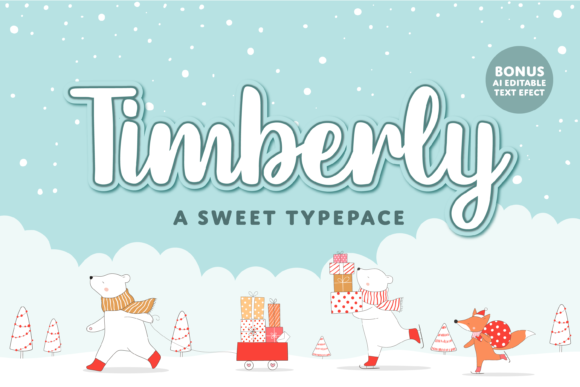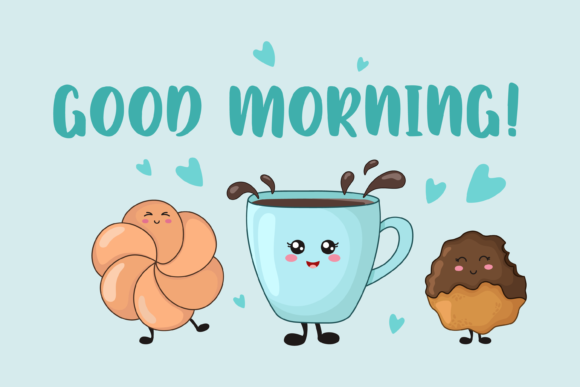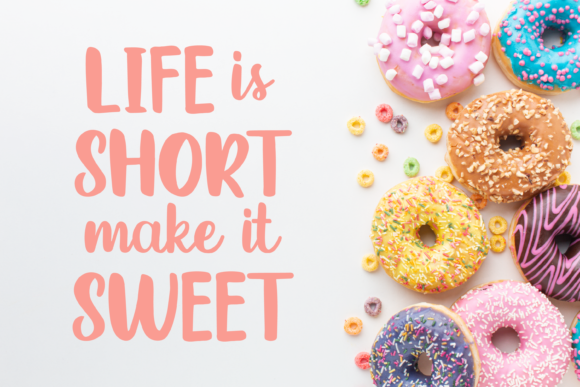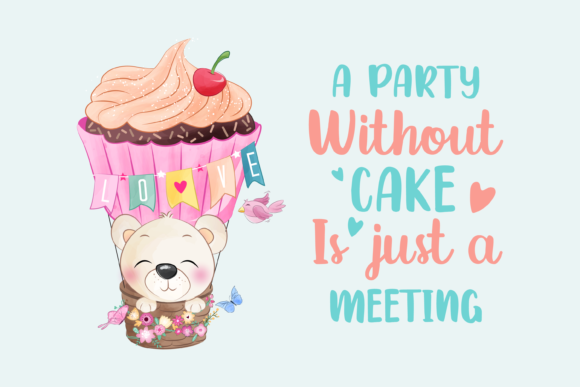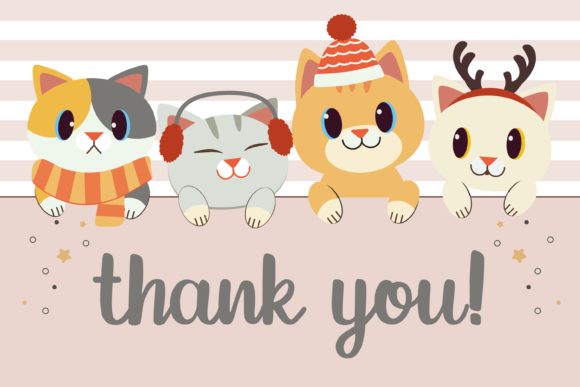
Timberly Font
About Timberly Font
Timberly features beautifully handcrafted letters! This font has a unique uppercase and lowercase letters with a distinct flowing feel. Fall in love with its ligatures and alternates, and get creative with this cute script!